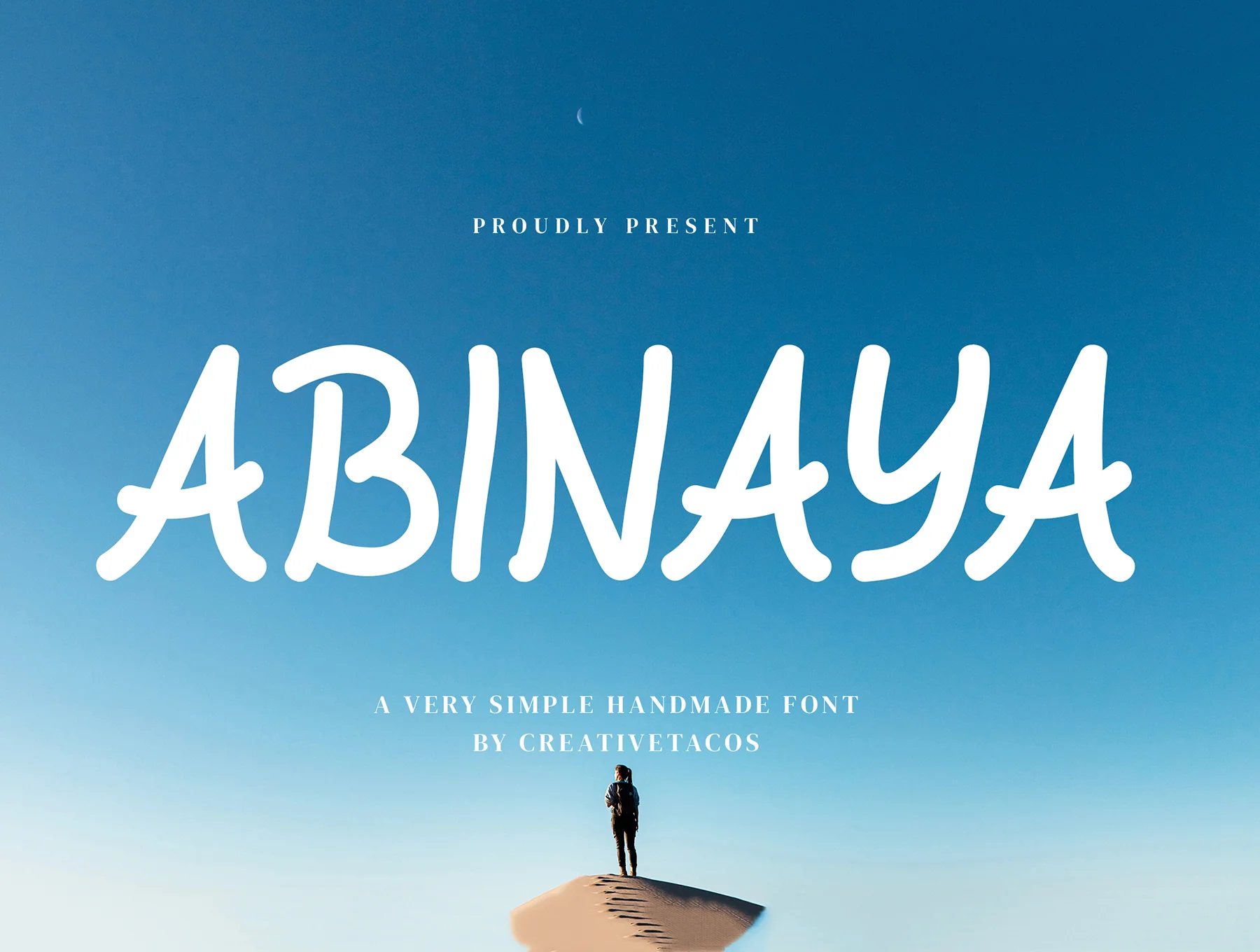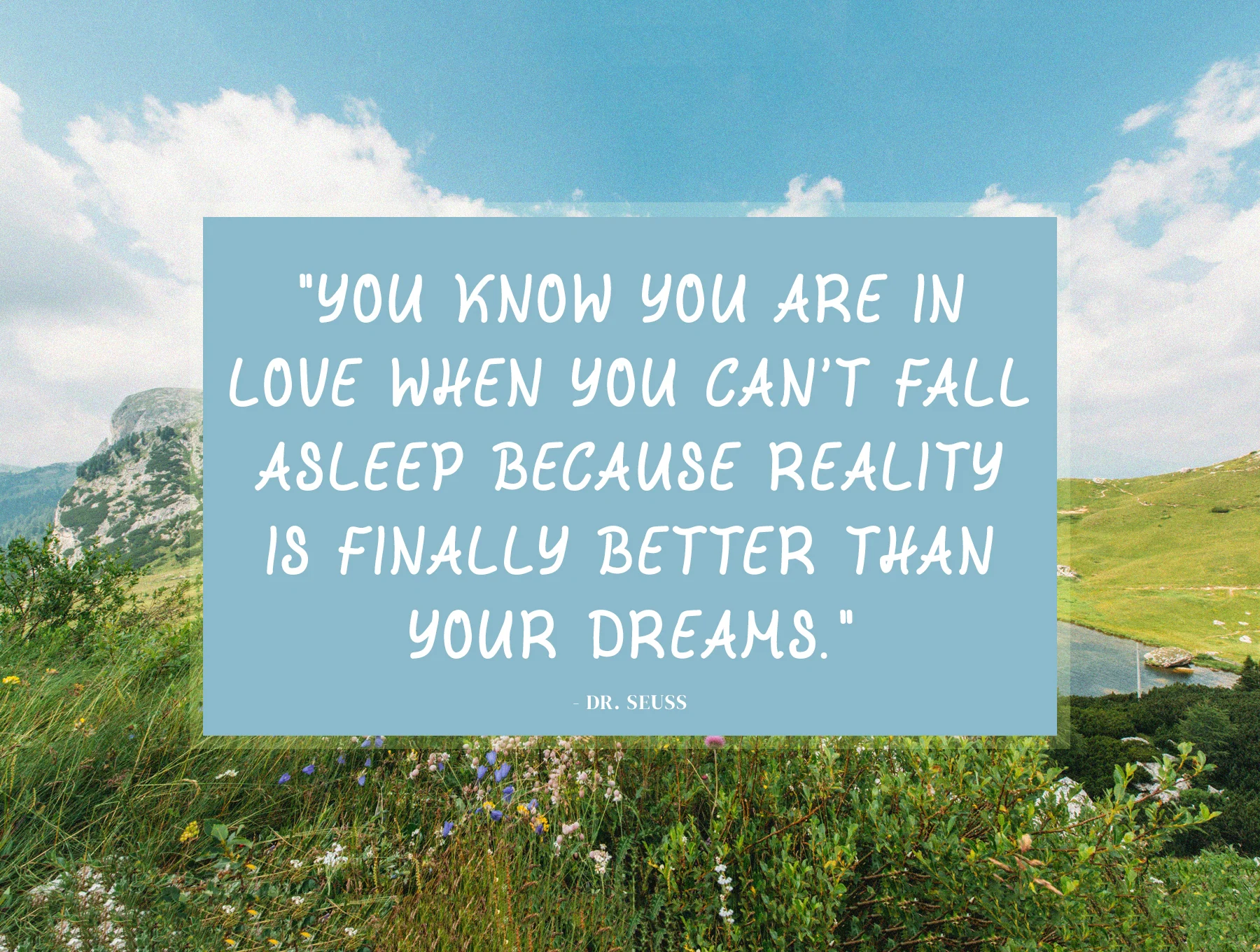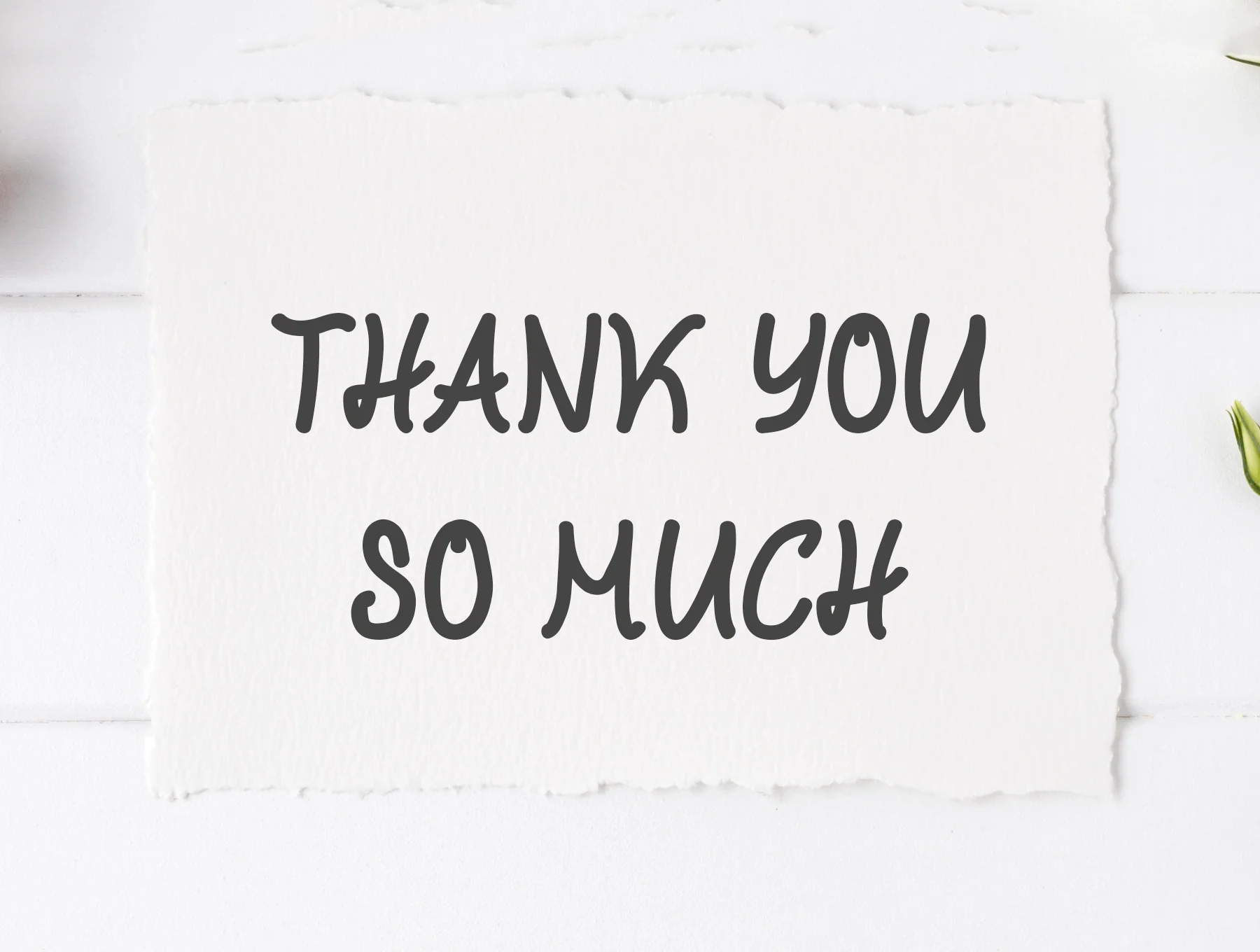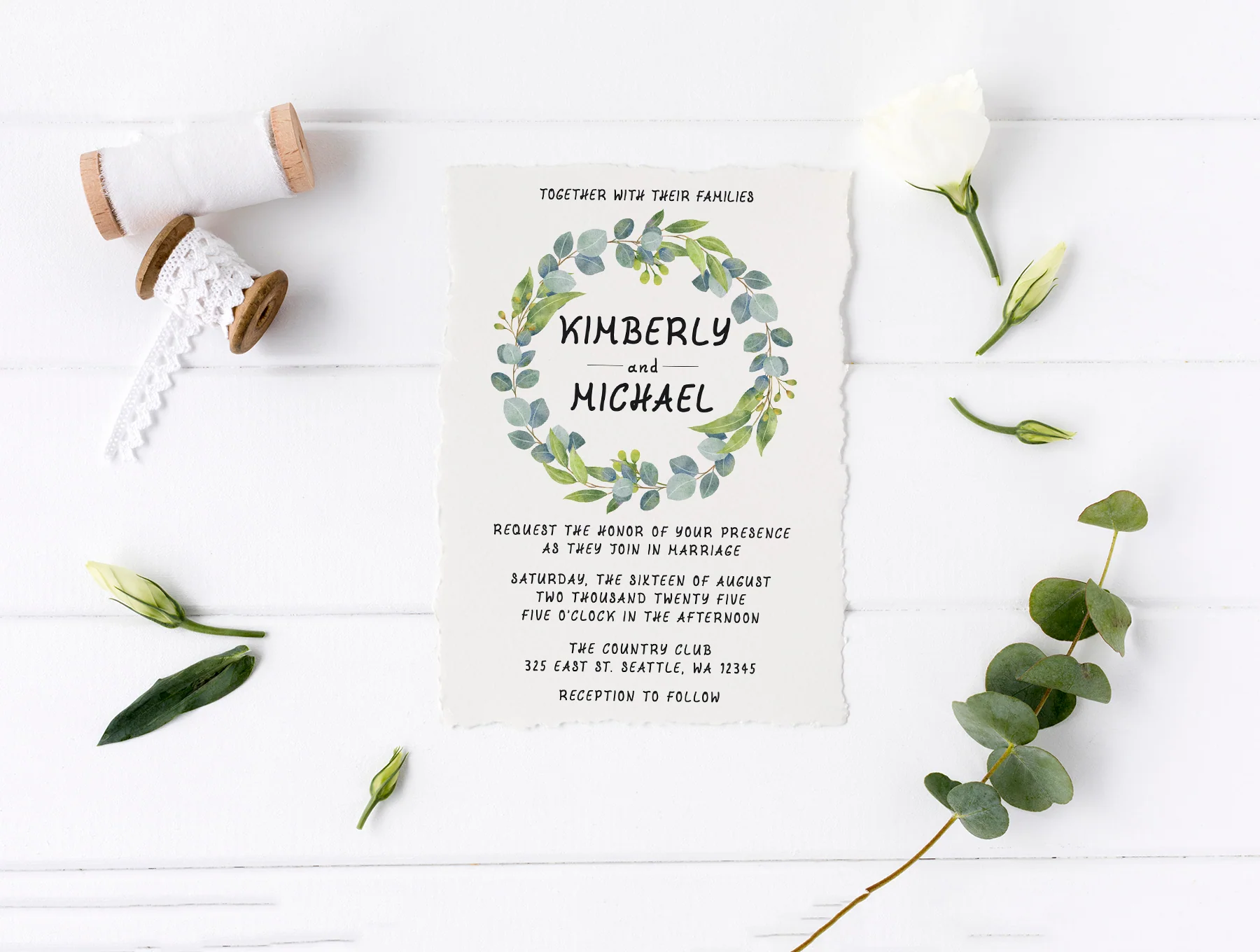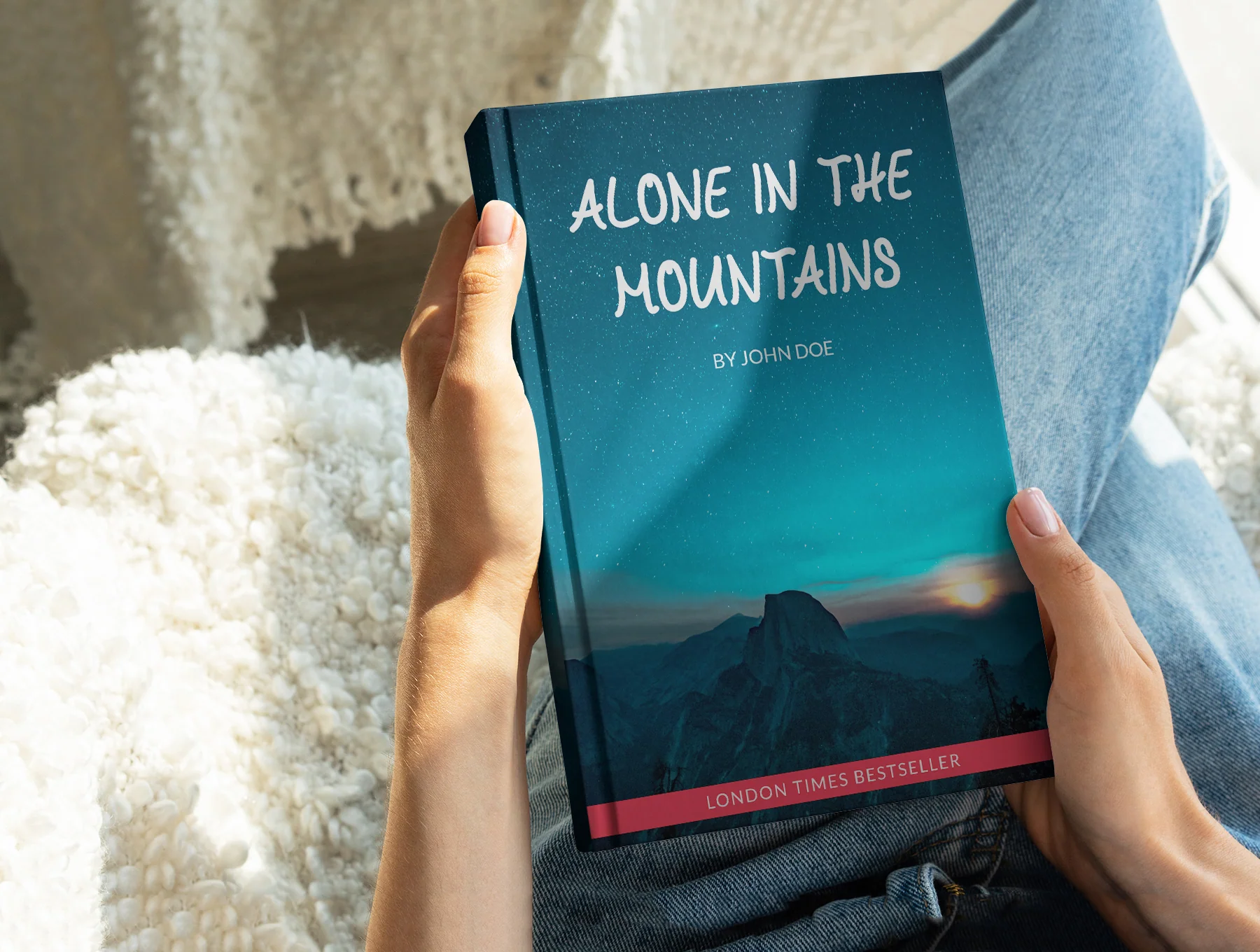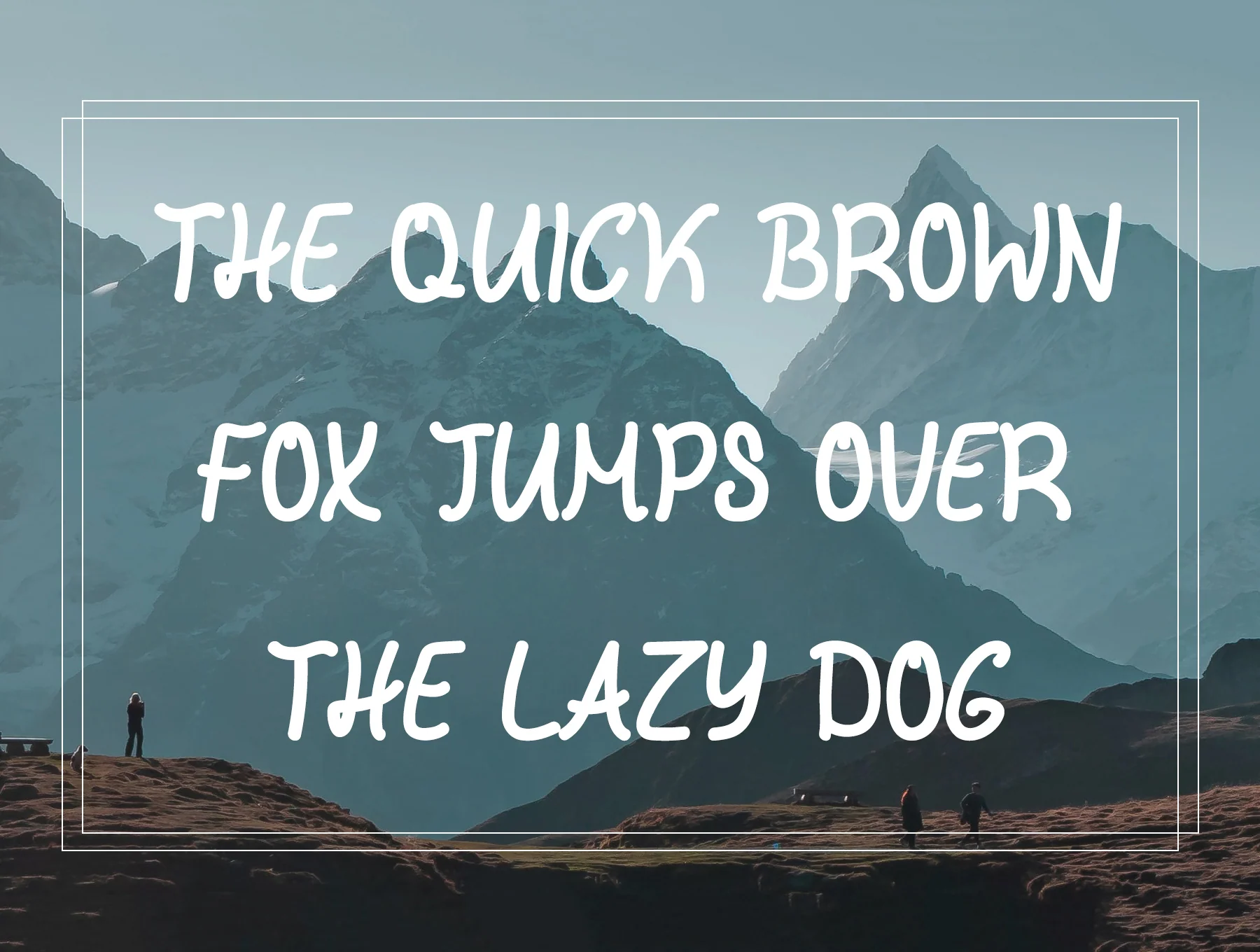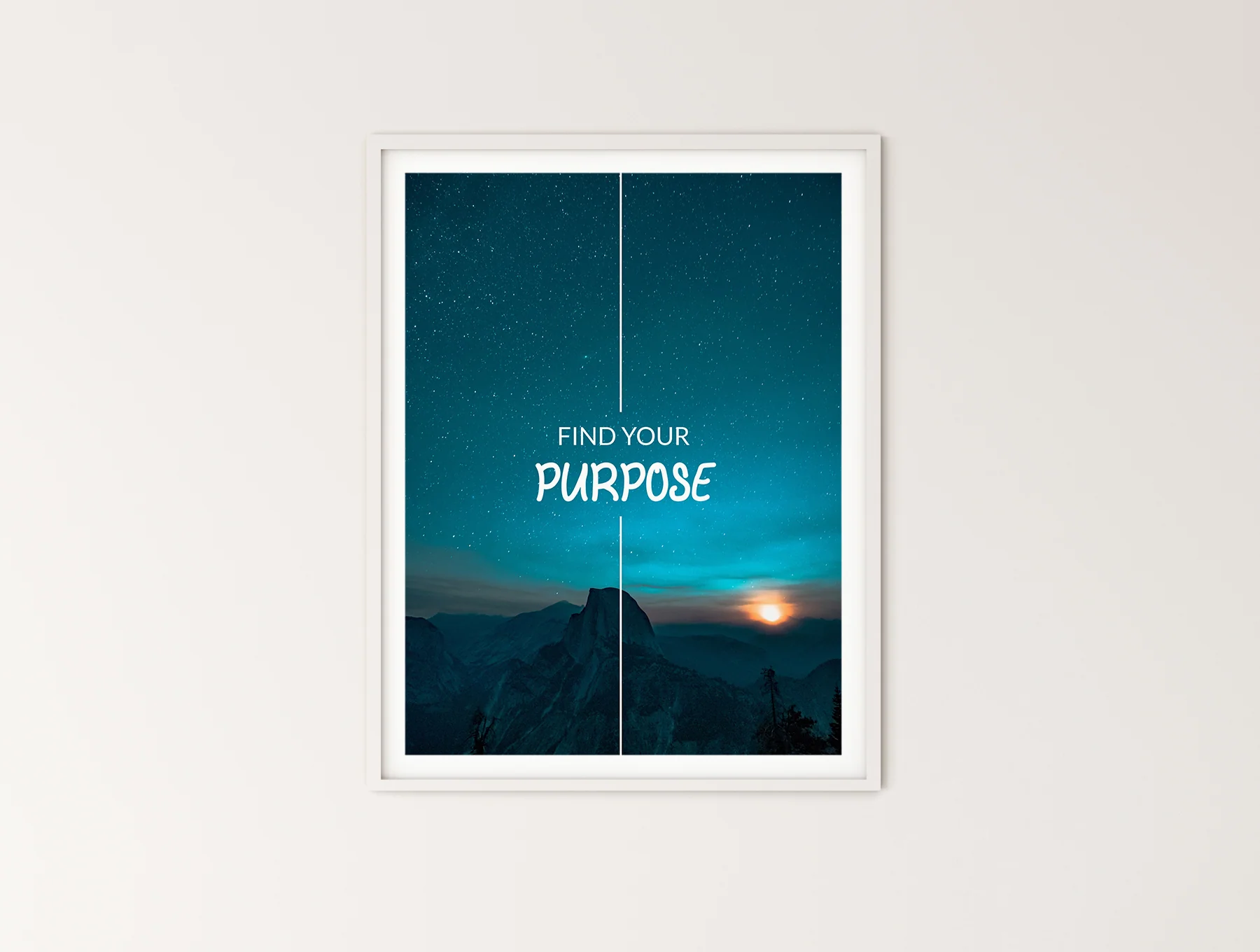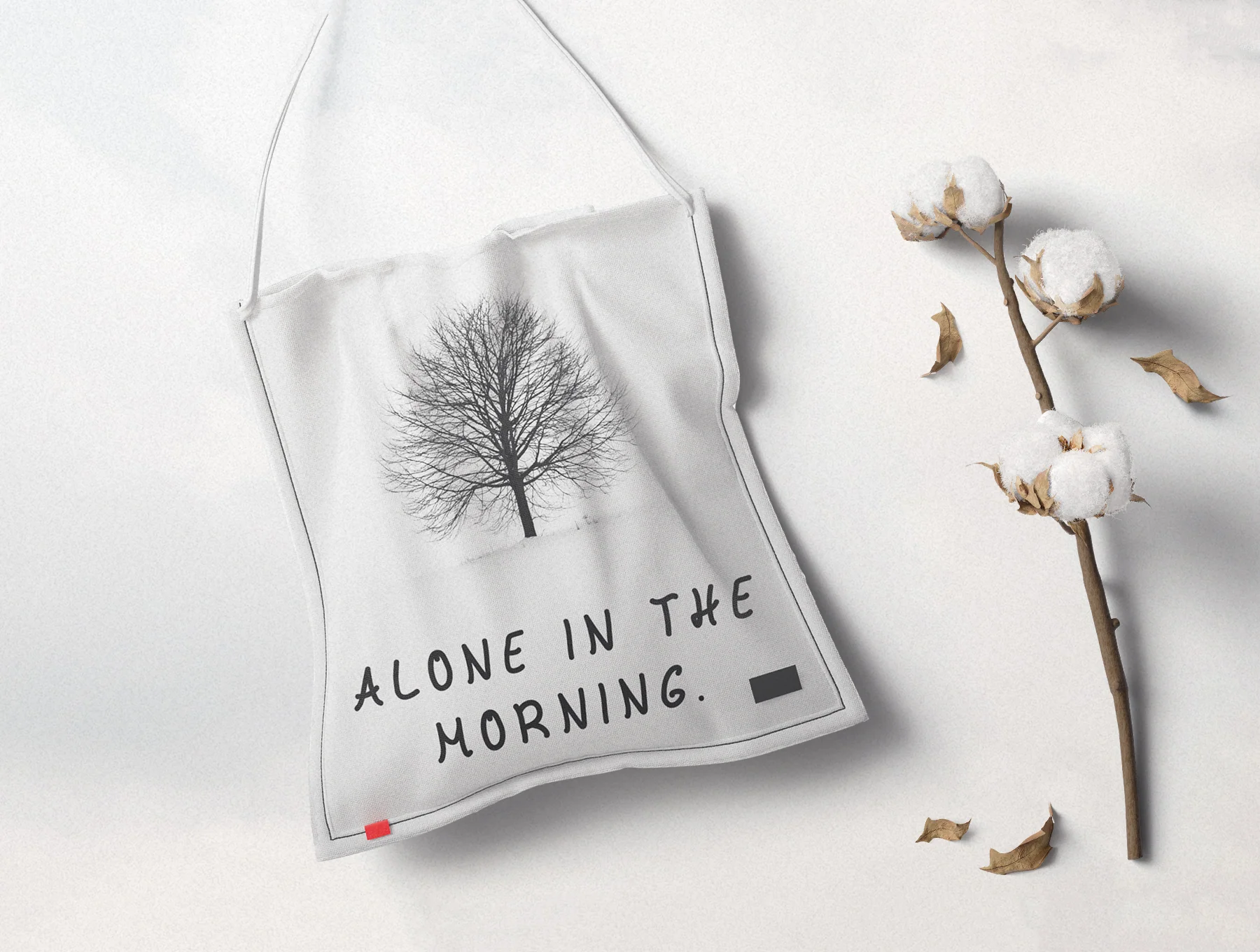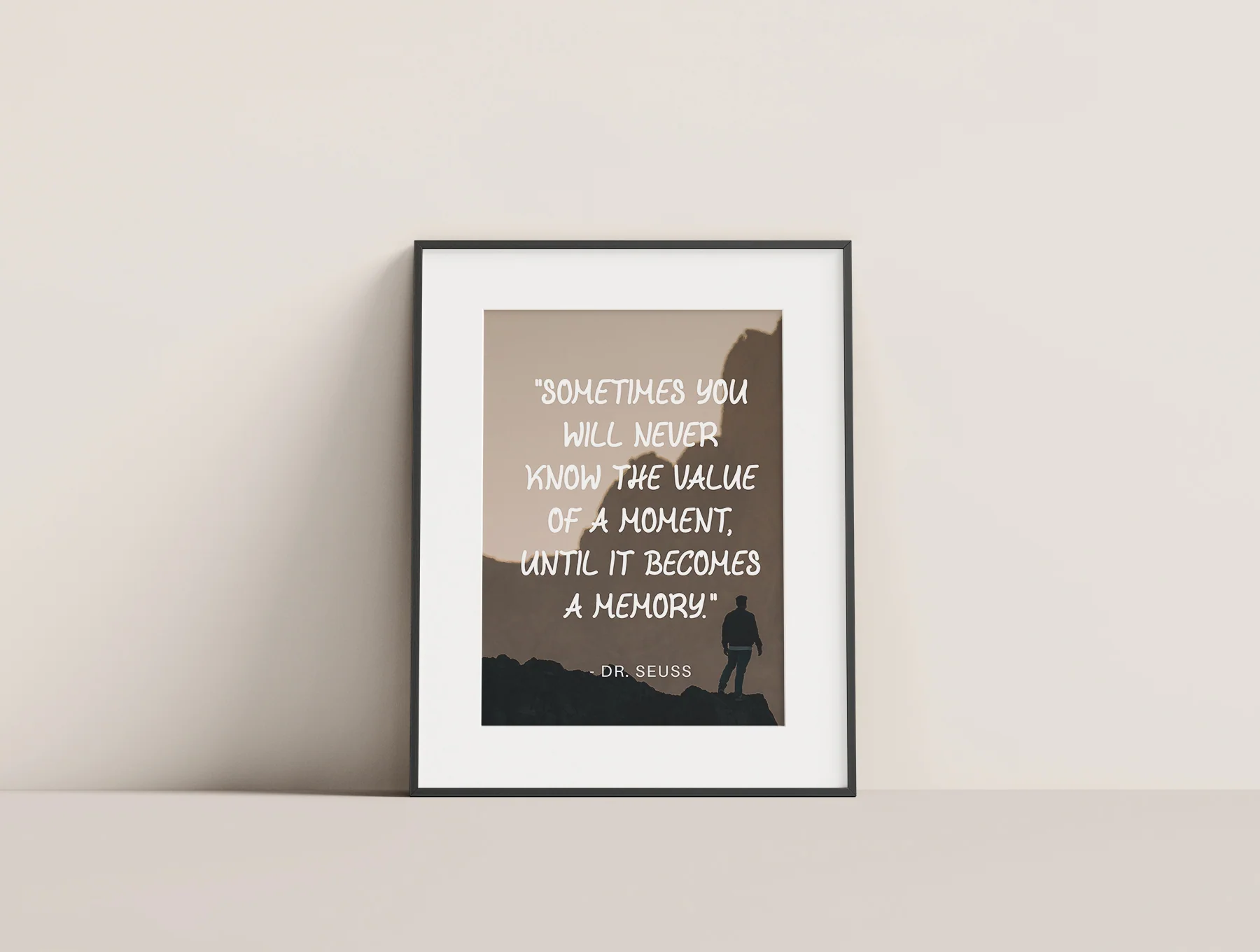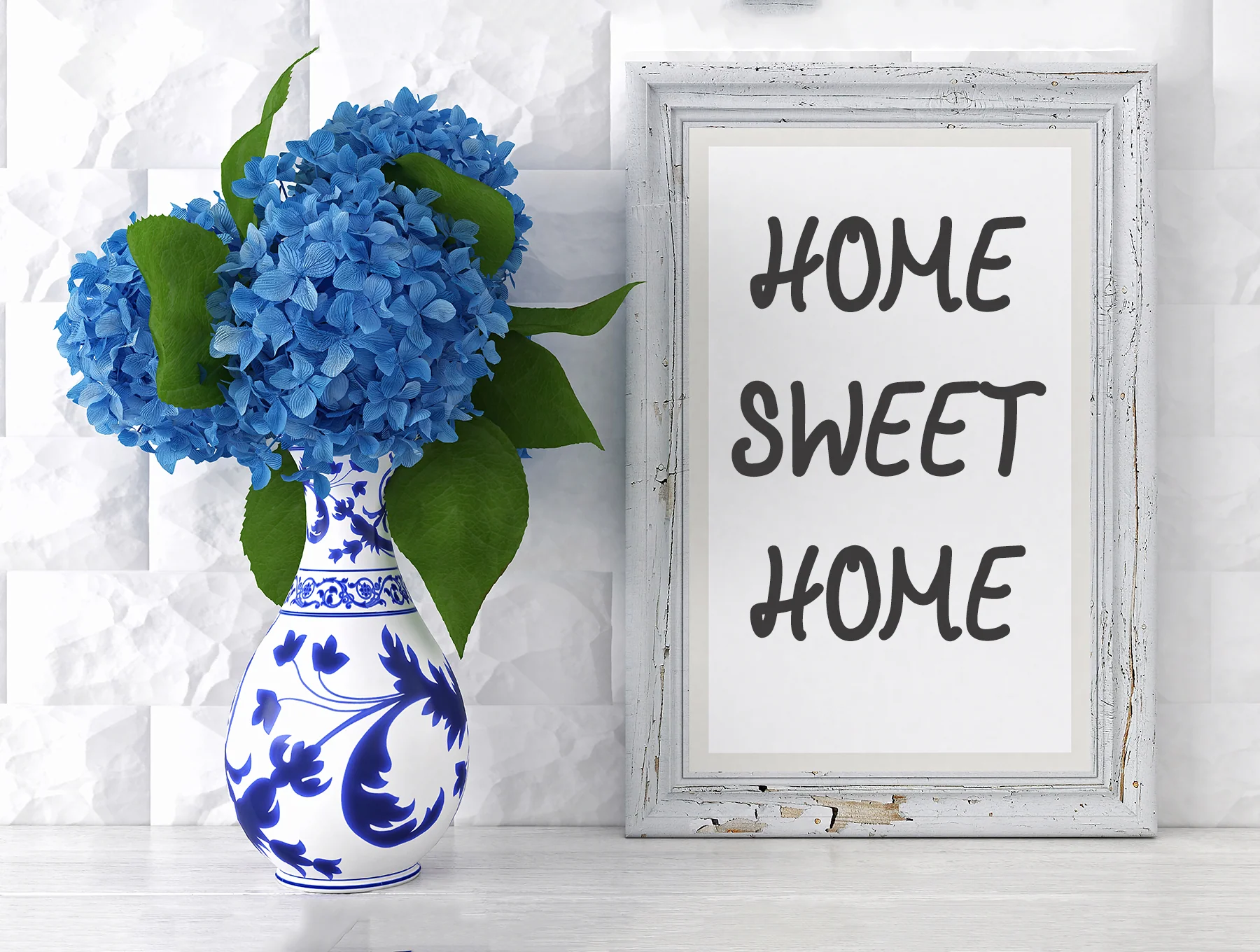
Abinaya Handmade Font
Abinaya handcrafted typeface
Crafted by hand typeface
Standard regular style
Abinaya Handmade Font offers a charming, playful handwritten style with an easygoing feel, perfect for designs that need a relaxed personality. Use it for logos, packaging, posters, branding, quotes, titles, magazines, web designs, invitations, books, and more. Includes regular weight in OTF, TTF, and Web Font Kit formats, with uppercase, lowercase, numbers, punctuation, and symbols.